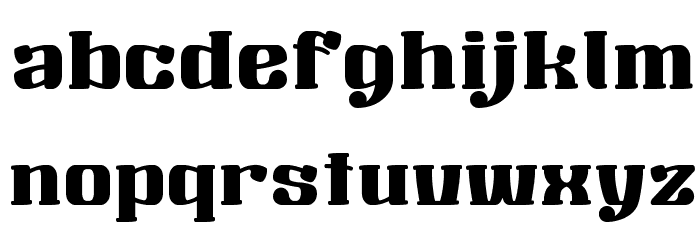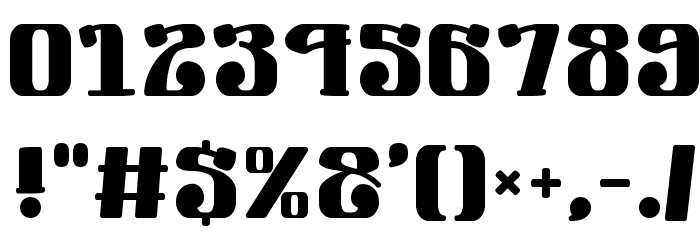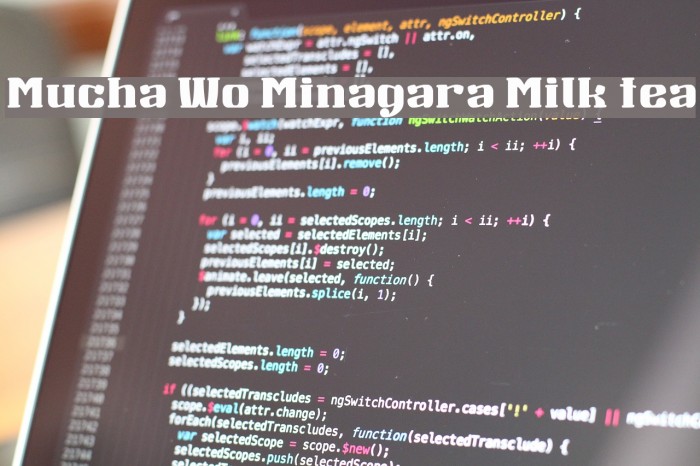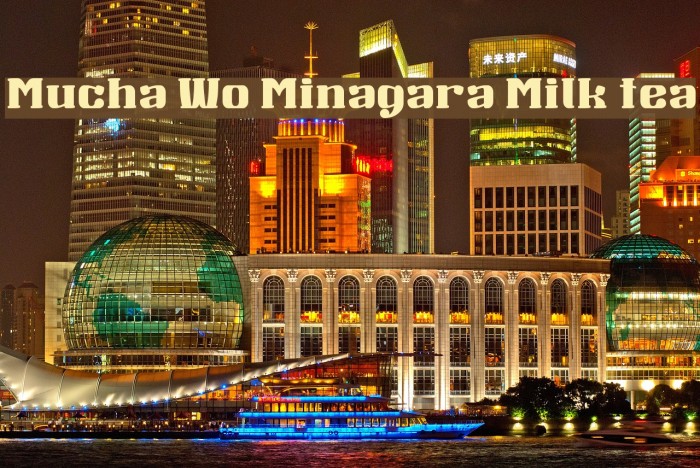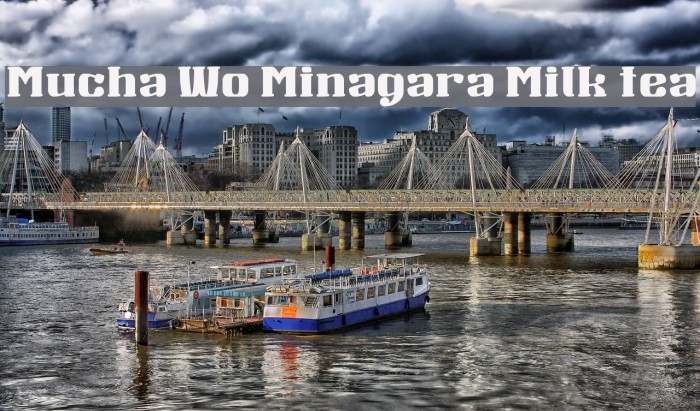
Mucha Wo Minagara Milk tea Font
This font features a bold and distinctive style with thick, blocky serifs that give it a strong presence. The characters are designed with a slight curvature, adding a touch of elegance to the otherwise robust appearance. The uppercase letters are particularly striking, with a uniform height and width that create a cohesive look. The lowercase letters maintain the same boldness, ensuring readability while adding a playful touch with their rounded edges. Numbers and special characters are crafted with the same attention to detail, making them stand out. The overall design is reminiscent of vintage poster fonts, combining a sense of nostalgia with modern usability.
A bold, vintage-inspired serif font with strong, blocky characters and a touch of elegance.
- Proposed Projects: Ideal for branding, poster design, headlines, and any project requiring a bold, eye-catching typeface.
- Overall Style: Vintage